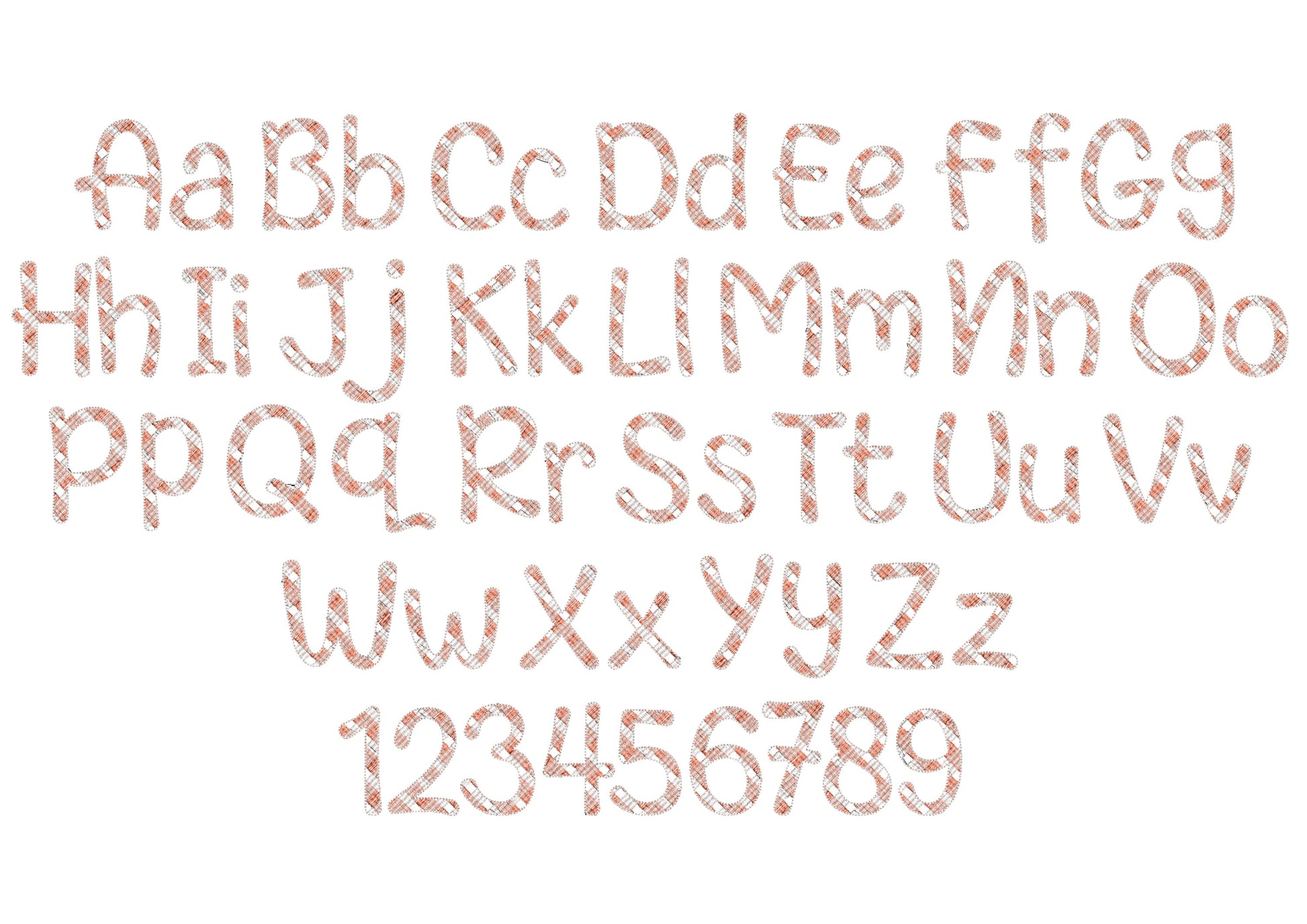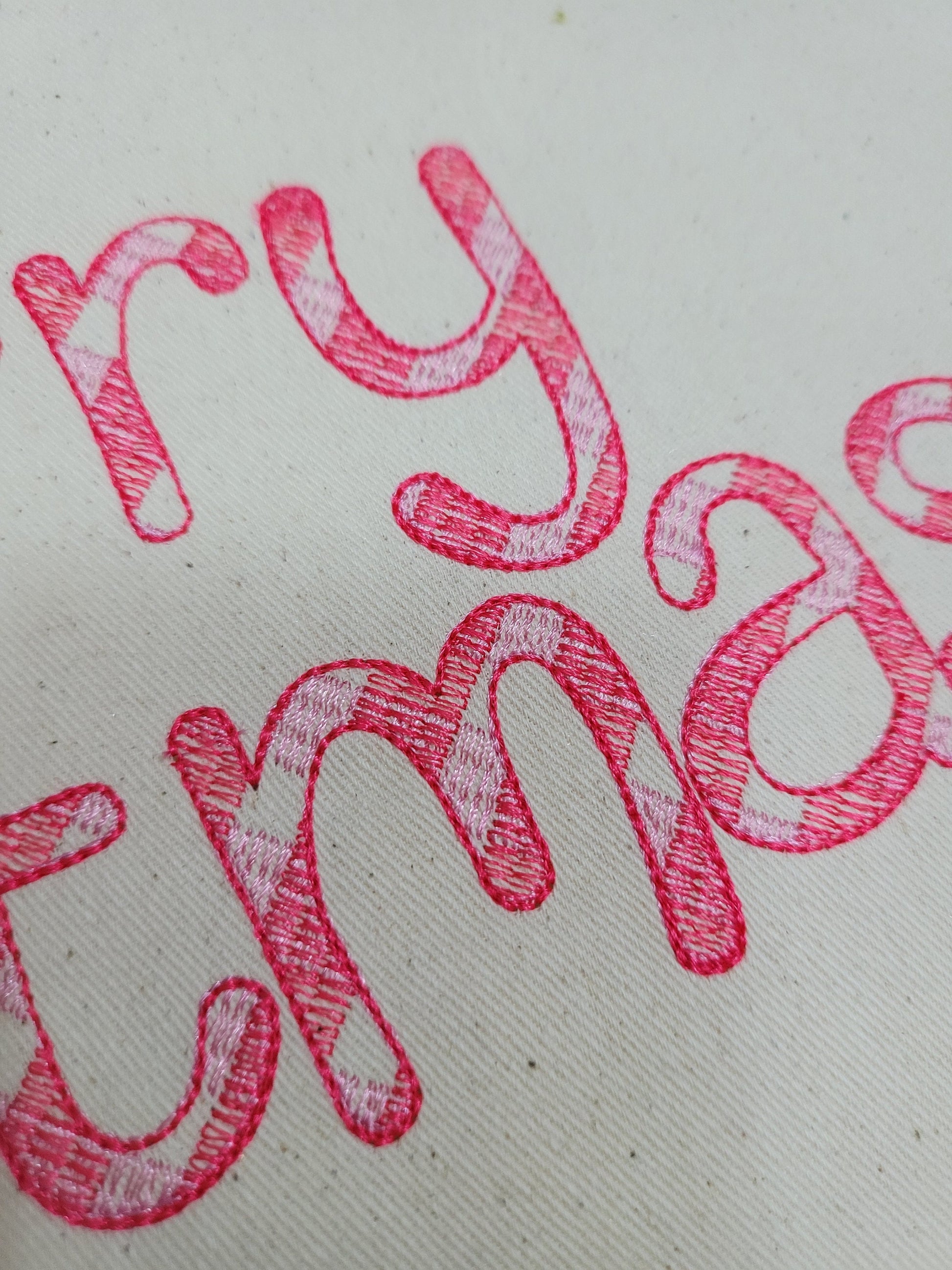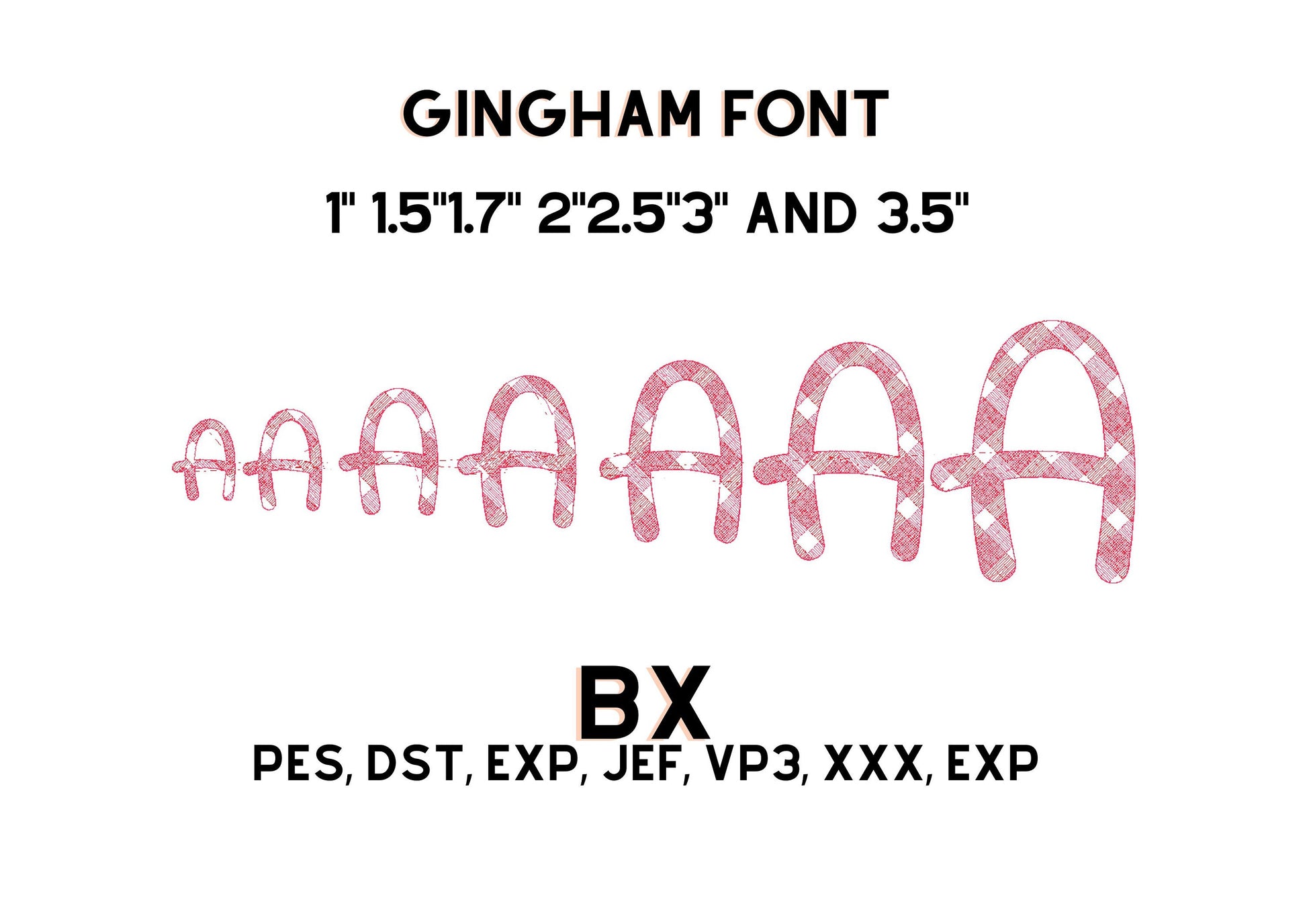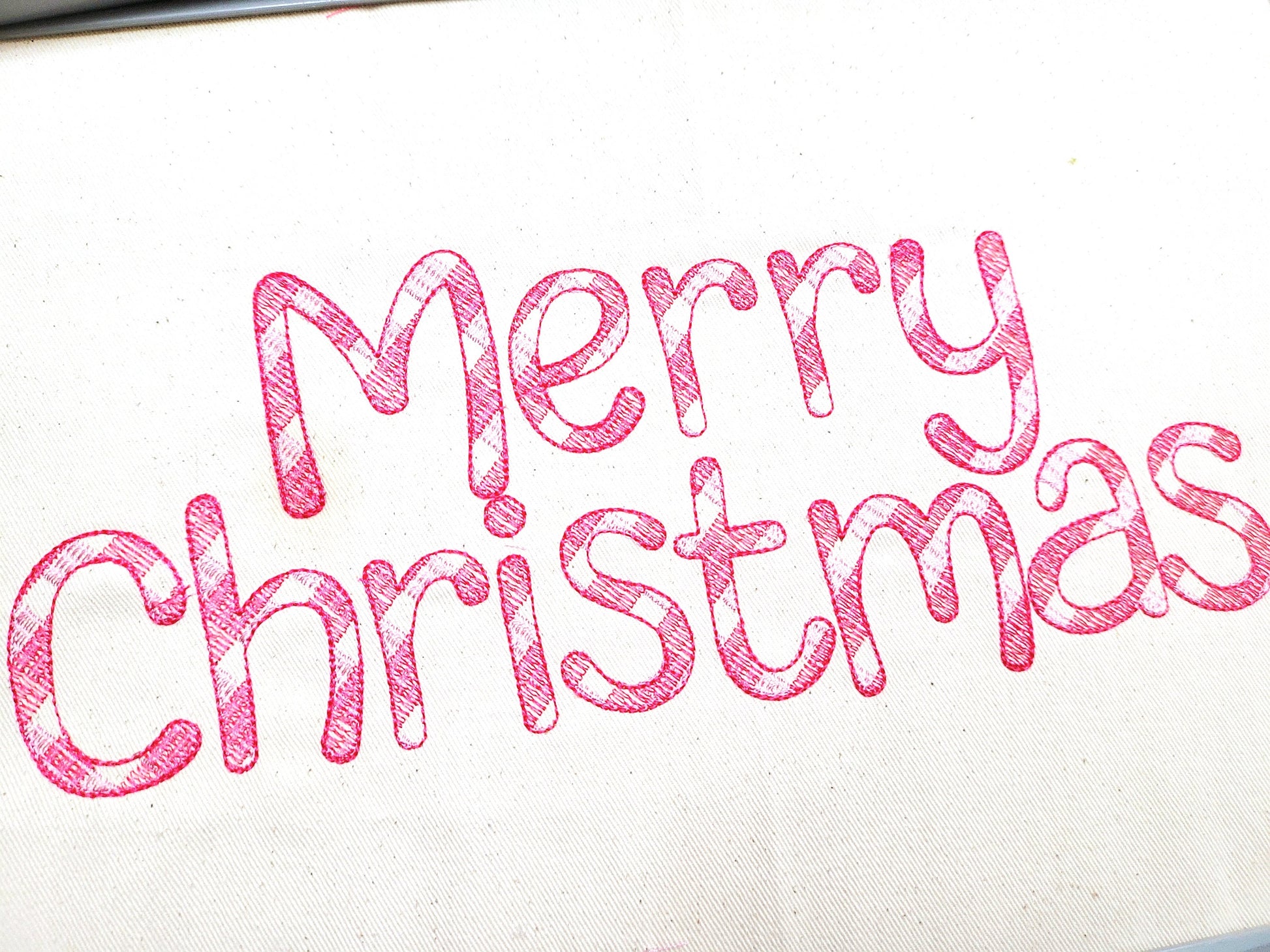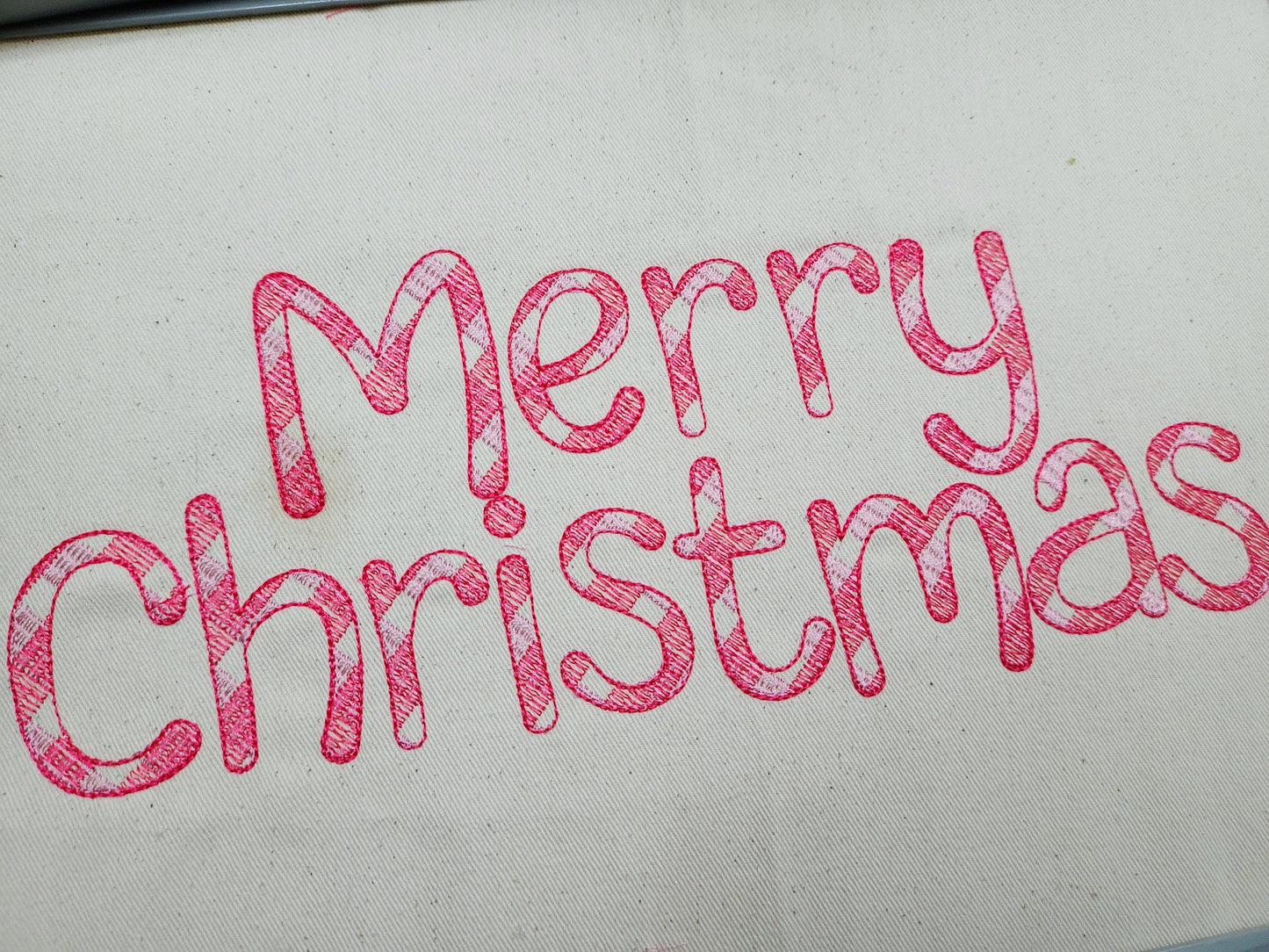
Sweet Gingham Plaid Font
Or click to open the linkA sweet gingham check font where the check lines are part of the stitching. Cozy for Christmas stockings, pillows, kids' names and farmhouse decor.
Uppercase and lowercase letters, numbers 0 to 9 and punctuation, in seven sizes: 1, 1.5, 1.7, 2, 2.5, 3 and 3.5 inches.
- Gingham check font
- Uppercase and lowercase letters, numbers 0-9, punctuation
- 7 sizes, 1 to 3.5 in